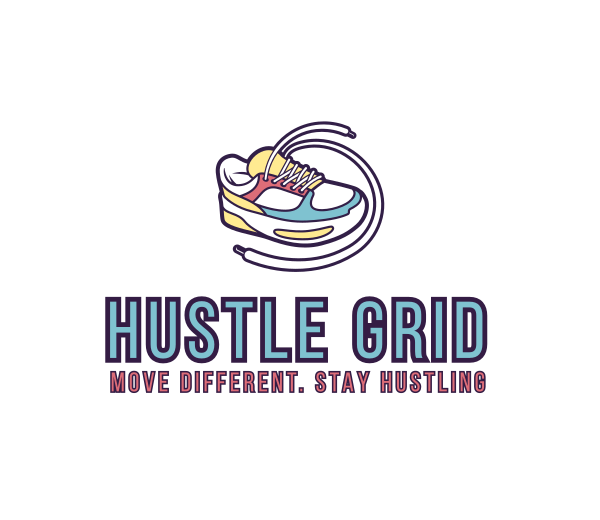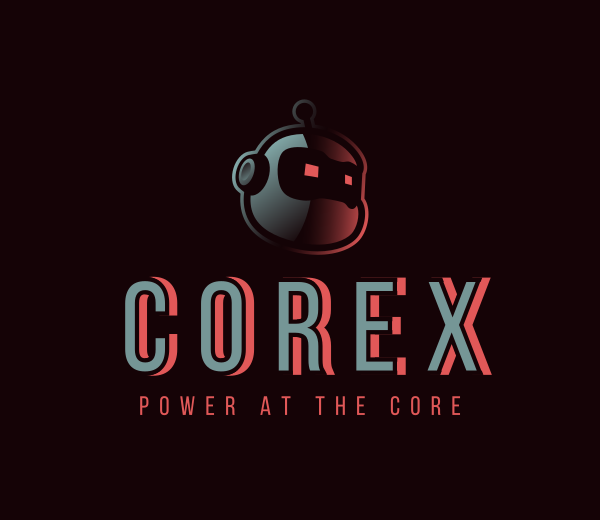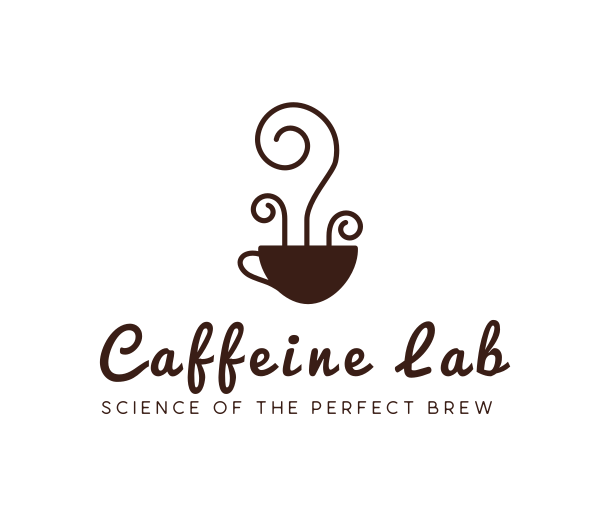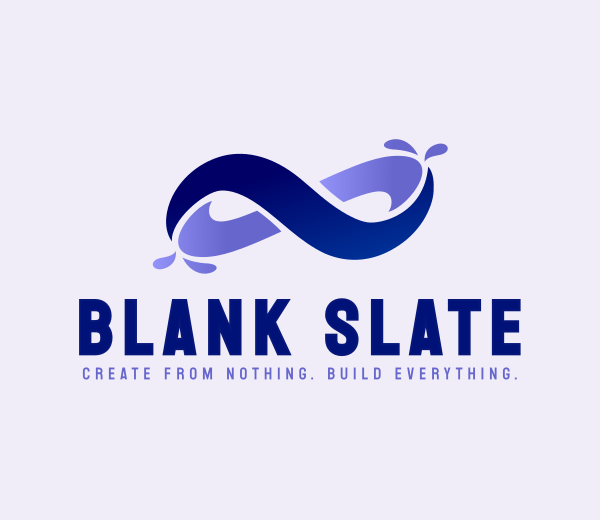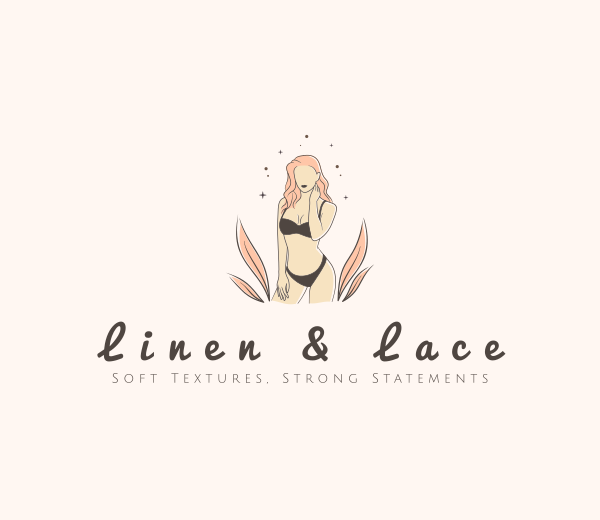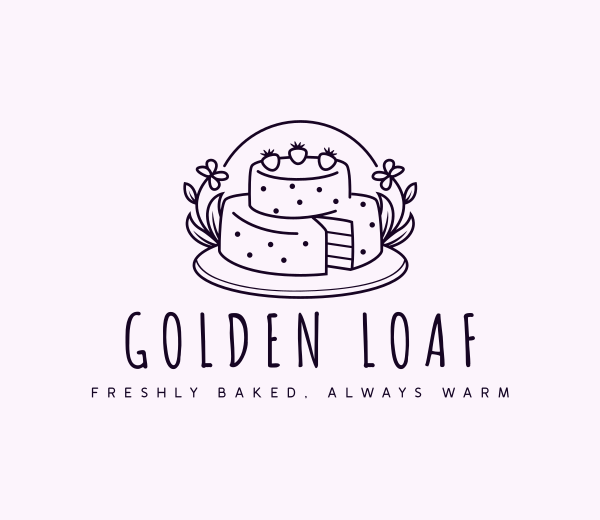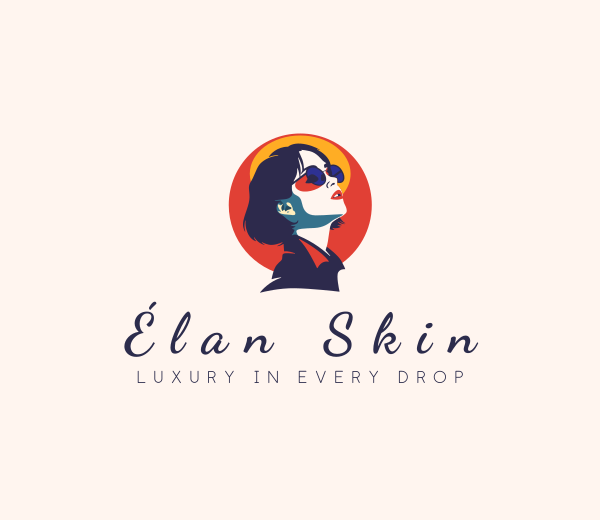
Top Font Trends of 2025
Ever picked a font and thought, “Hmm… something feels off?”
Maybe it was hard to read, boring, or didn’t match your brand. The wrong font can make your business look outdated or unprofessional—pushing customers away before they even give you a chance.
But the right font grabs attention, sets the vibe, and makes your brand look fresh and modern. With so many typography options, choosing the best one can be tricky.
Don’t worry, we’ve got you covered! Check out the top font trends of 2025 to help your brand stand out in the best way possible.
Let’s check them out!
How to Choose the Right Font for Your Business
Wondering if a certain font is perfect for your brand? Here’s how to choose the typography:
- Match Your Brand’s Personality: Fonts have feelings! A luxury brand needs something elegant and refined, while a playful monogram logo might convey something fun and bubbly.
- Make Sure It’s Easy to Read: If people have to squint, they won’t stick around. Avoid overly decorative fonts for body text, and always check readability on different screens.
- Think About Where It’ll Be Used: A stylish font might look great in your logo design but be hard to read in small print or on a website. Test it in different sizes and formats.
- Balance Trendy & Timeless: Trendy fonts can make your brand look fresh, but they might not age well if they’re too flashy. Choose something modern with lasting appeal.
- Pair Fonts Like a Pro: Mixing fonts? Make sure they work well together! A bold, eye-catching heading pairs best with a simple, readable body font.
Top Font Trends of 2025
Here are the top font trends of 2025 you should check out:
1. Bold and Chunky Fonts
Thick, heavy fonts are taking center stage in 2025, bringing confidence and impact to branding. These fonts are designed to be attention-grabbing, making them perfect for logos, headlines, and advertisements. They create a bold, modern aesthetic that immediately draws the eye.
Their strong presence in bold fonts helps brands convey power, innovation, and authority. Whether used in digital or print, they ensure messaging stands out in a crowded market. If you’re considering a letter logo, O logos would look especially striking in a bold, chunky style.
2. Retro-Inspired Typography
Vintage fonts are making a big comeback, tapping into nostalgia while still feeling fresh and stylish. From ’70s curves and neon ’80s lettering to bold ’90s typography, these fonts bring a sense of familiarity and warmth. They evoke emotions and connect with audiences on a deeper level.
By blending classic and modern styles, retro fonts help brands stand out while maintaining a fun, approachable identity. They work especially well for businesses looking to create a unique and memorable visual presence.
3. Handwritten and Organic Fonts
Handwritten fonts add personality and authenticity to branding. These fonts feel natural, imperfect, and human—qualities that help businesses build a warm and personal connection with their audience.
In an era where customers crave authenticity, handwritten fonts create a sense of trust and craftsmanship. They’re perfect for businesses highlighting their handmade, eco-friendly, or customer-focused approach.
4. Futuristic Sans-Serifs
Minimalist and forward-thinking, futuristic sans-serif fonts are all about clean lines and modern sophistication. These typefaces give brands a sleek, high-tech look that feels innovative and cutting-edge. They’re often used in branding for industries focusing on technology, finance, and digital services.
Futuristic fonts are designed for clarity and impact, making them ideal for websites, app interfaces, and digital marketing. They create a streamlined, professional feel that resonates with modern audiences.
5. Elegant Serif Comeback
Serif fonts are returning in 2025 with a modern, stylish twist. These fonts exude professionalism, luxury, and tradition while incorporating contemporary details that make them feel fresh and refined. They balance classic elegance with modern usability.
Choose the Right Font Today
The right font can make all the difference in how people see your brand. Whether you want to look bold, playful, elegant, or modern, there’s a perfect font trend for 2025. Take your time, try different styles, and choose one that fits your brand’s personality.